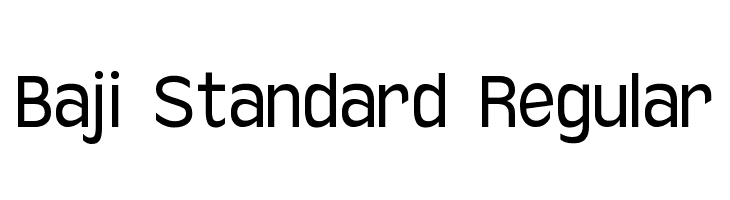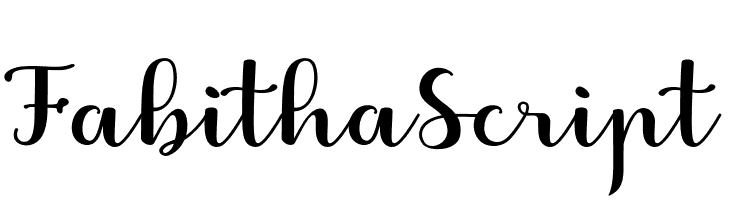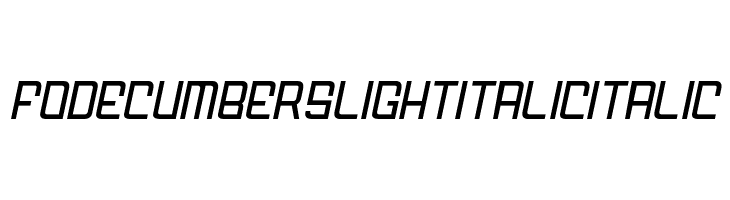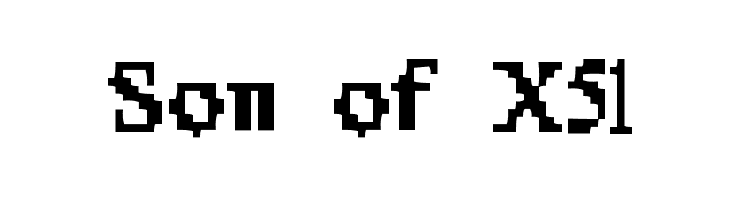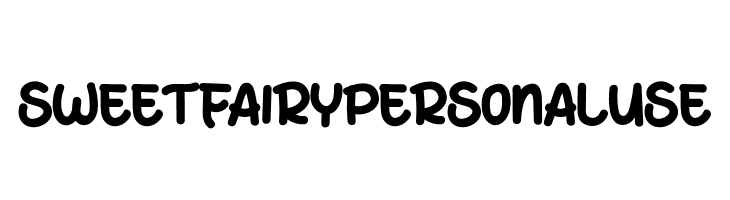
A flowing, elegant cursive script with bold uppercase and smooth lowercase letters.
A playful, handwritten font with smooth, rounded edges and a casual style.
A geometric and decorative font with a modern, architectural style.
A clean and modern sans-serif font with consistent stroke width and balanced spacing.
A playful, cookie-inspired decorative font with bold, white letters on dark, round backgrounds.
A bold, geometric font with a futuristic, digital aesthetic.
A modern, clean sans-serif typeface with uniform strokes and slightly condensed characters.
A bold, playful font with a cartoonish, bubbly style.
A bold, italicized font with sharp angles and a modern, dynamic style.
A pixelated, retro-style font inspired by early digital displays.